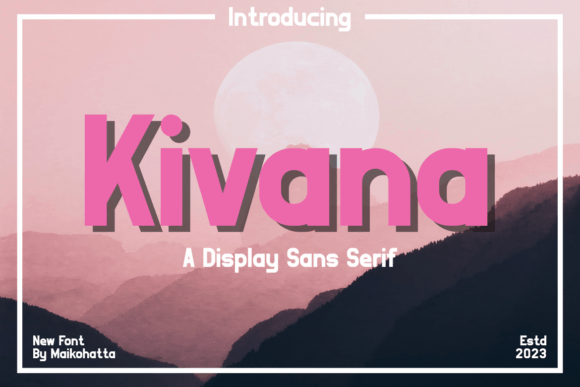
Kivana Font: The Quintessential Q, a Masterpiece of Modern Typography
In the realm of visual communication, fonts hold the power to captivate audiences and convey messages with unparalleled eloquence. Among the vast tapestry of typefaces, Kivana Font stands out as a beacon of elegance, simplicity, and visual appeal, embodying the essence of modern typography.
Crafted with meticulous precision, Kivana Font boasts a captivating Q that dances across the screen like a ballet dancer, enchanting the eyes with its graceful curves and impeccable poise. Whether adorning headlines, body text, or intricate designs, the Q in Kivana Font commands attention, inviting readers to delve deeper into the visual narrative.
Beyond its captivating Q, Kivana Font exudes a aura of clean, professional sophistication. Its sans serif design bestows a contemporary edge, perfectly suited for businesses, brands, and individuals seeking to project an image of innovation and forward-thinking. The font's clean lines and unadorned strokes create a visual harmony that enhances readability and comprehension, making it an ideal choice for websites, presentations, and marketing materials.
The versatility of Kivana Font knows no bounds. Its ability to seamlessly adapt to a myriad of design contexts makes it a font that every designer and creative professional should have in their digital toolbox. Whether crafting logos, brochures, posters, or social media graphics, Kivana Font effortlessly elevates the visual appeal of any project. Its simplicity and visual appeal make it equally suited for graphic design and modern typography.
With Kivana Font, you unlock a world of creative possibilities. Its clean, professional look adds a touch of sophistication to any project, while its captivating Q adds a touch of intrigue. Embrace the power of modern typography and elevate your designs to new heights with Kivana Font.